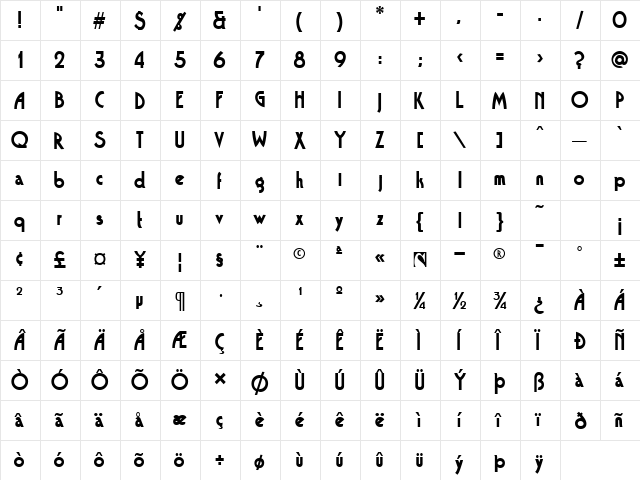
Wash Black normal
Design Context for Wash Black Typeface
Wash Black is a composed and adaptable typeface that performs quietly and consistently across a wide range of design contexts.